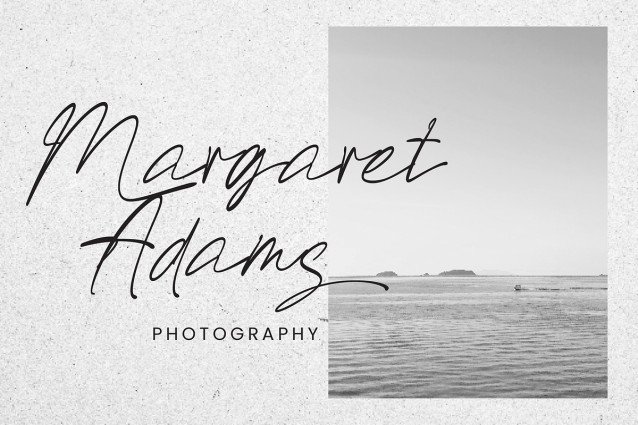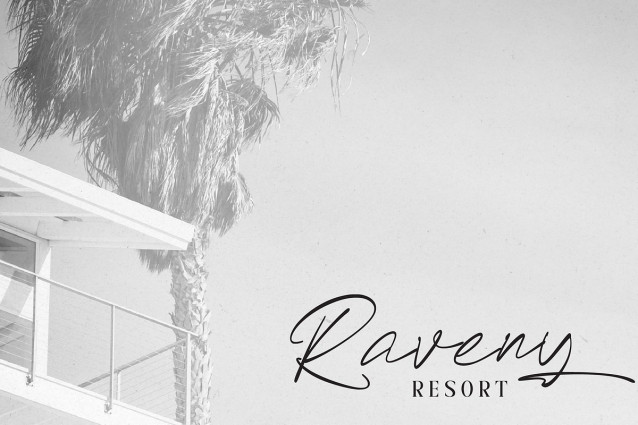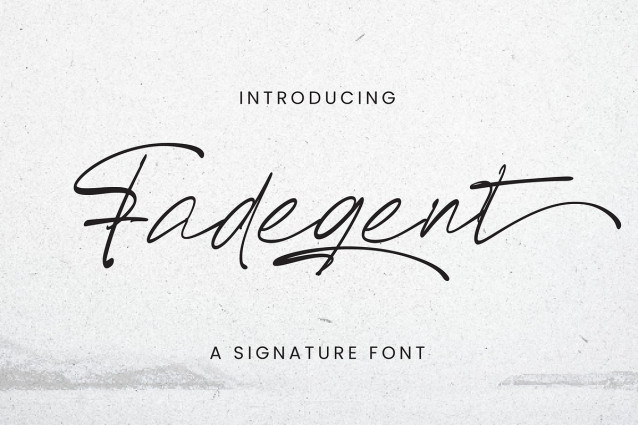
Fadegent Font
Fadegent Font an elegant signature style font. With graceful strokes and refined curves, this font adds a touch of luxury to any design. Perfect for logos, branding, and upscale projects, Fadegent Font exudes effortless charm and sophistication.